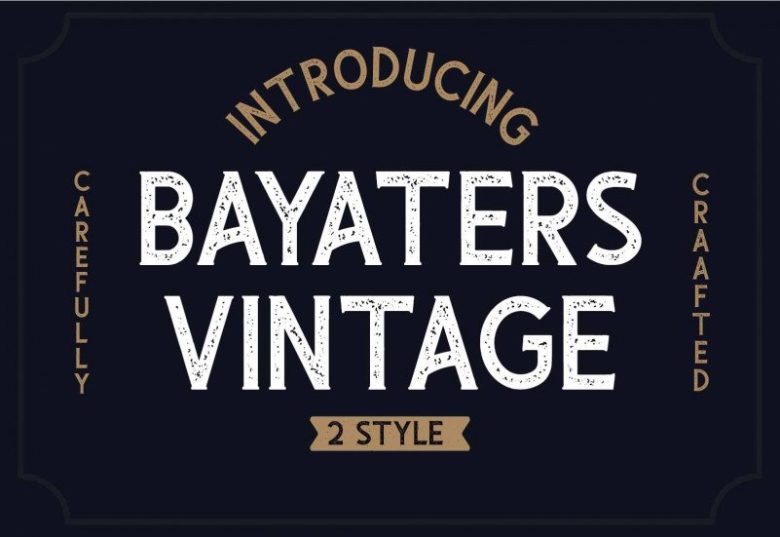
Bayaters Font
This is an extremely unique and fun display font created by Galatamen with a classic, simple style. Simple but with a strong visual effect, this font will instantly make your creation more appealing than any others.